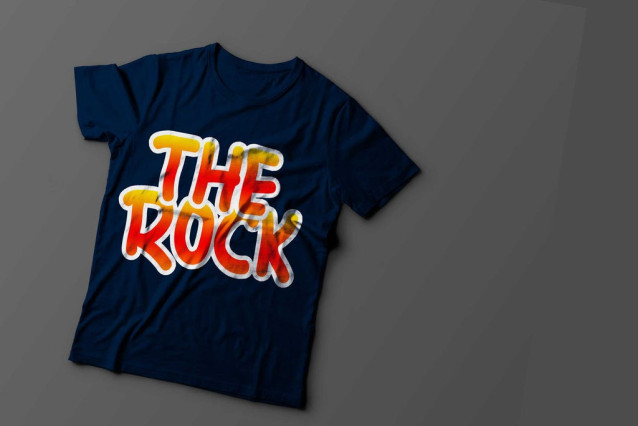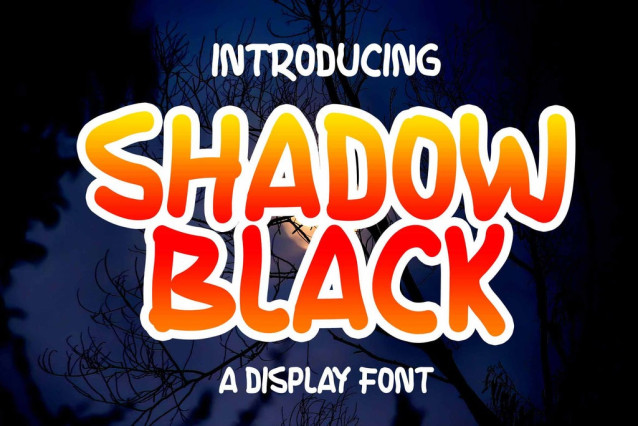
Shadow Black Font
Shadow Black Font is a display font that is very unique and by displaying interesting street art. This font has the potential to take your creative work to the highest level. This font is suitable for designs such as t-shirts, sportswear, logos, advertisements, clothing, and more.